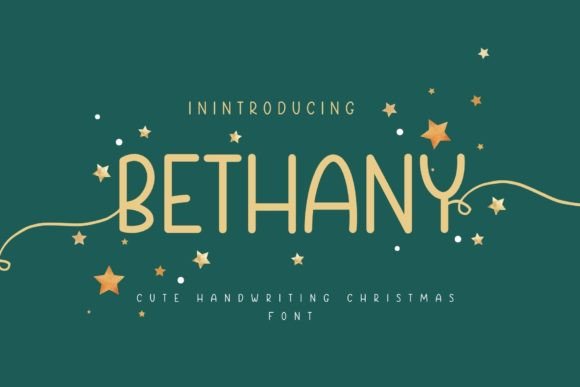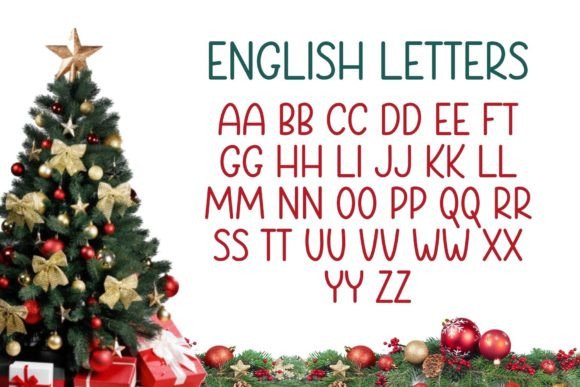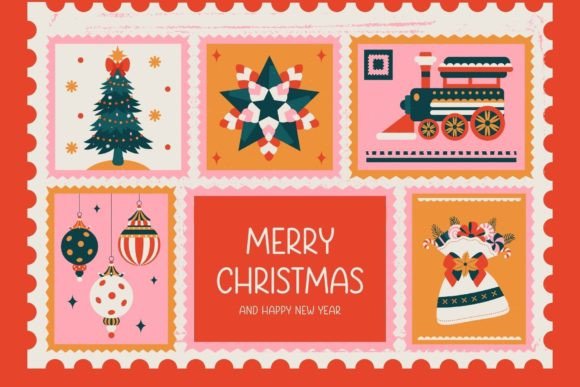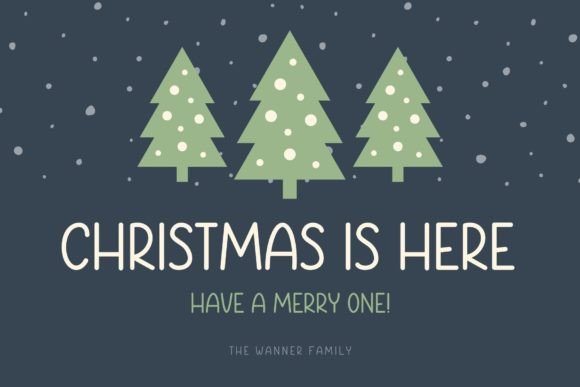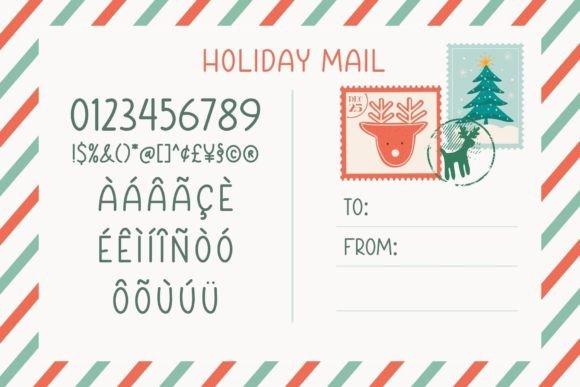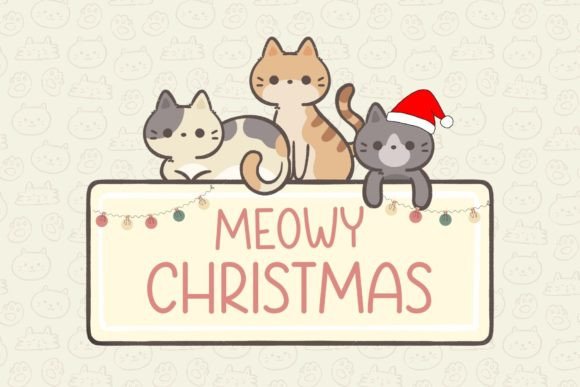
Bethany Font
Bethany is a delightful and whimsical Christmas font that captures the essence of the holiday season with its cute, handwritten style. Perfect for adding a touch of festive charm to your holiday cards, gift tags, and seasonal projects. Bethany brings warmth and cheer to your text, spreading holiday joy with every letter.